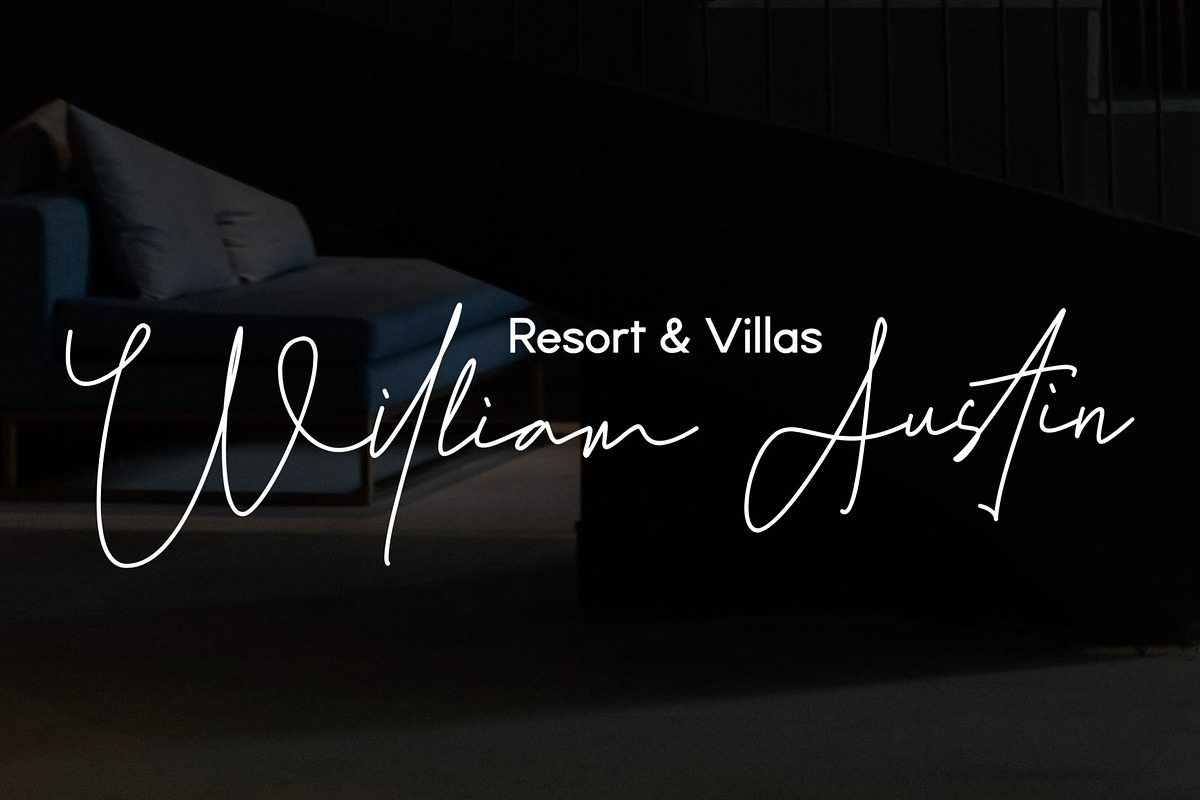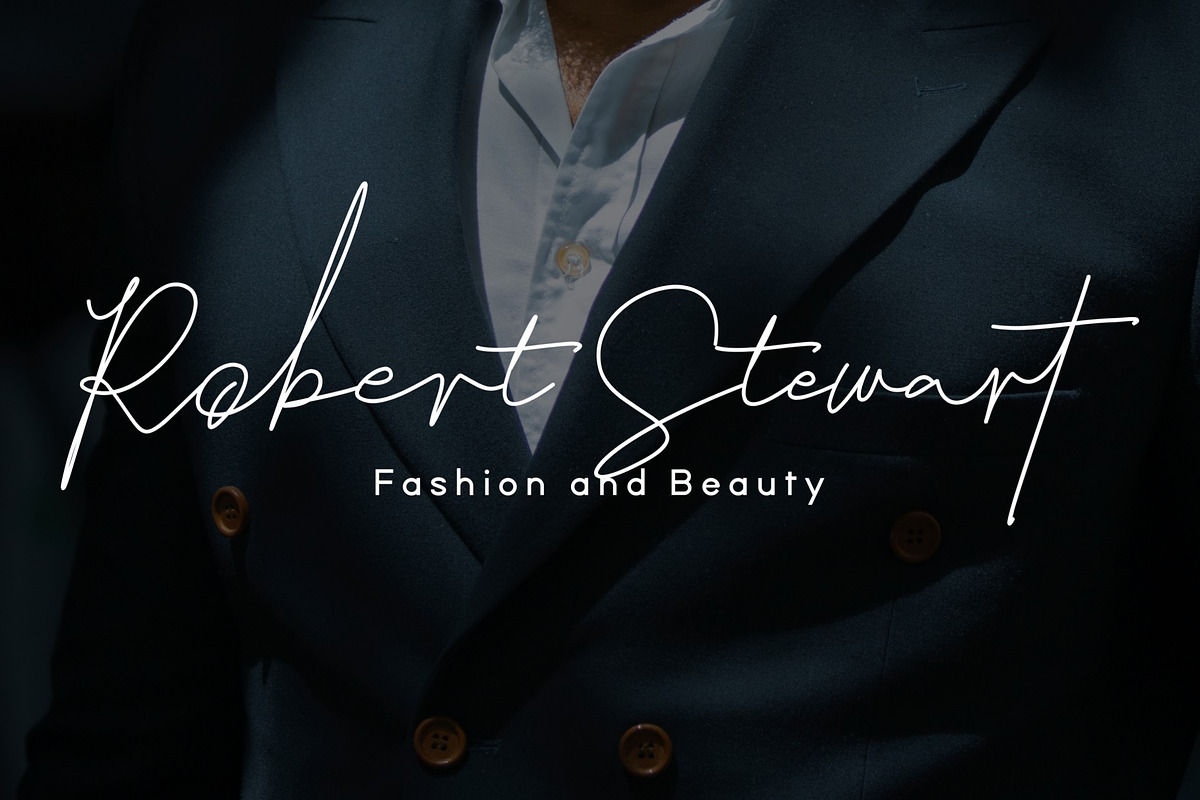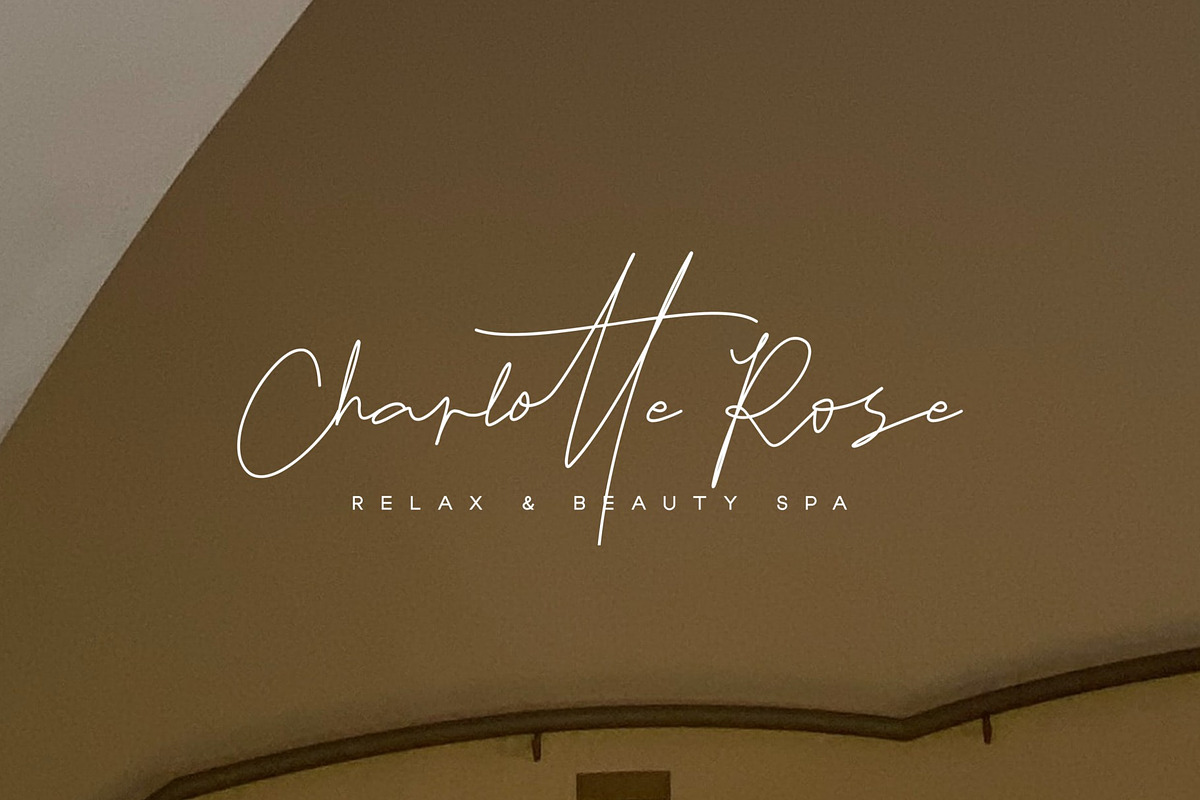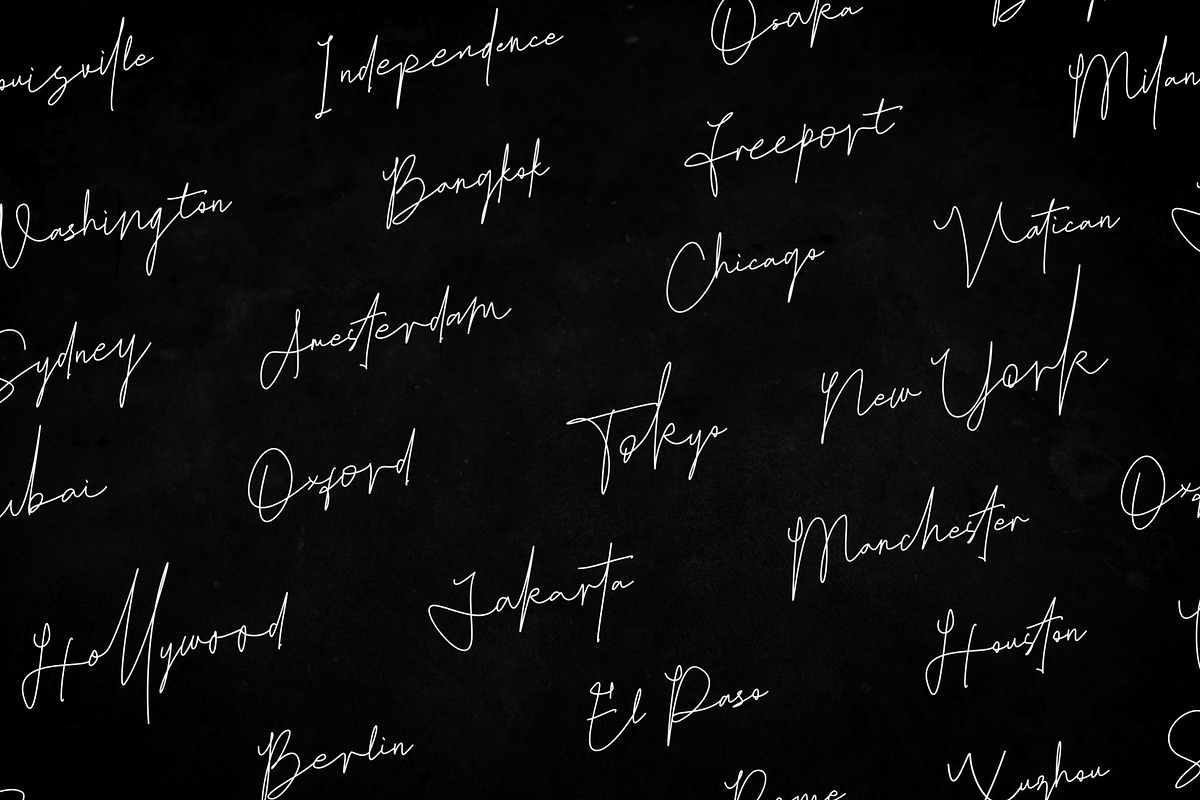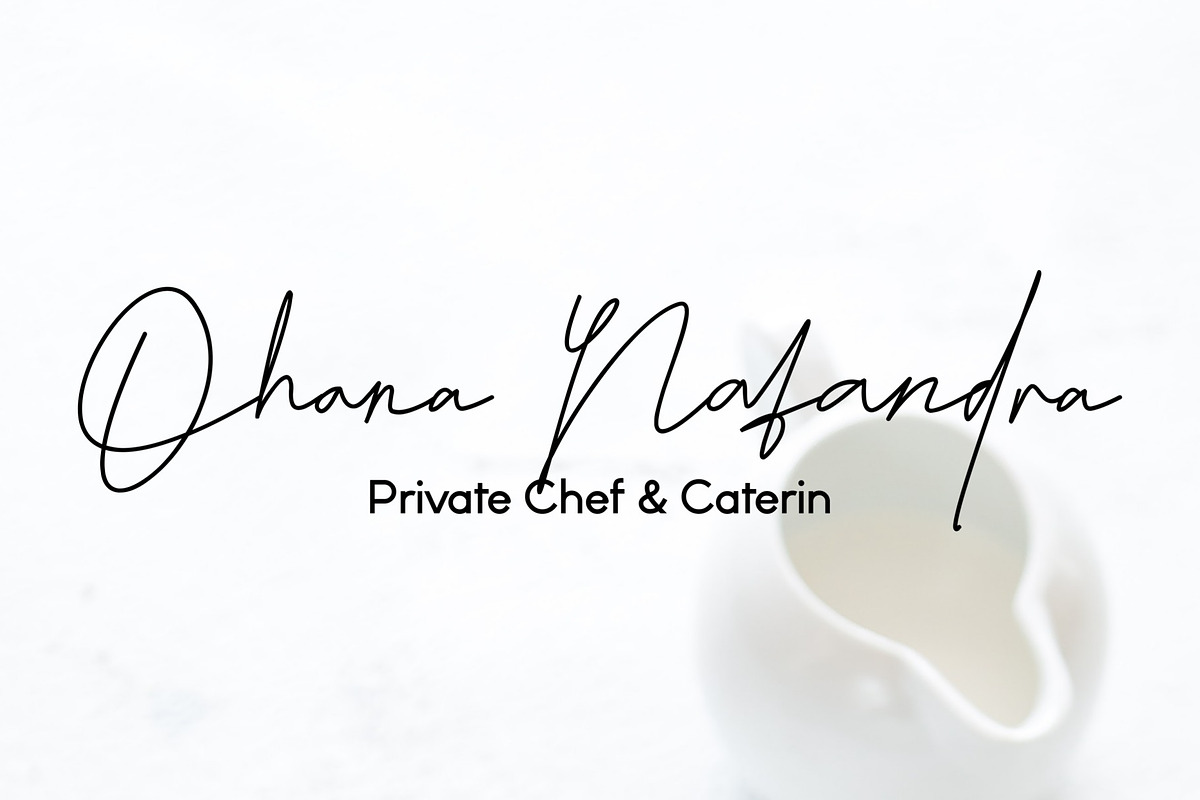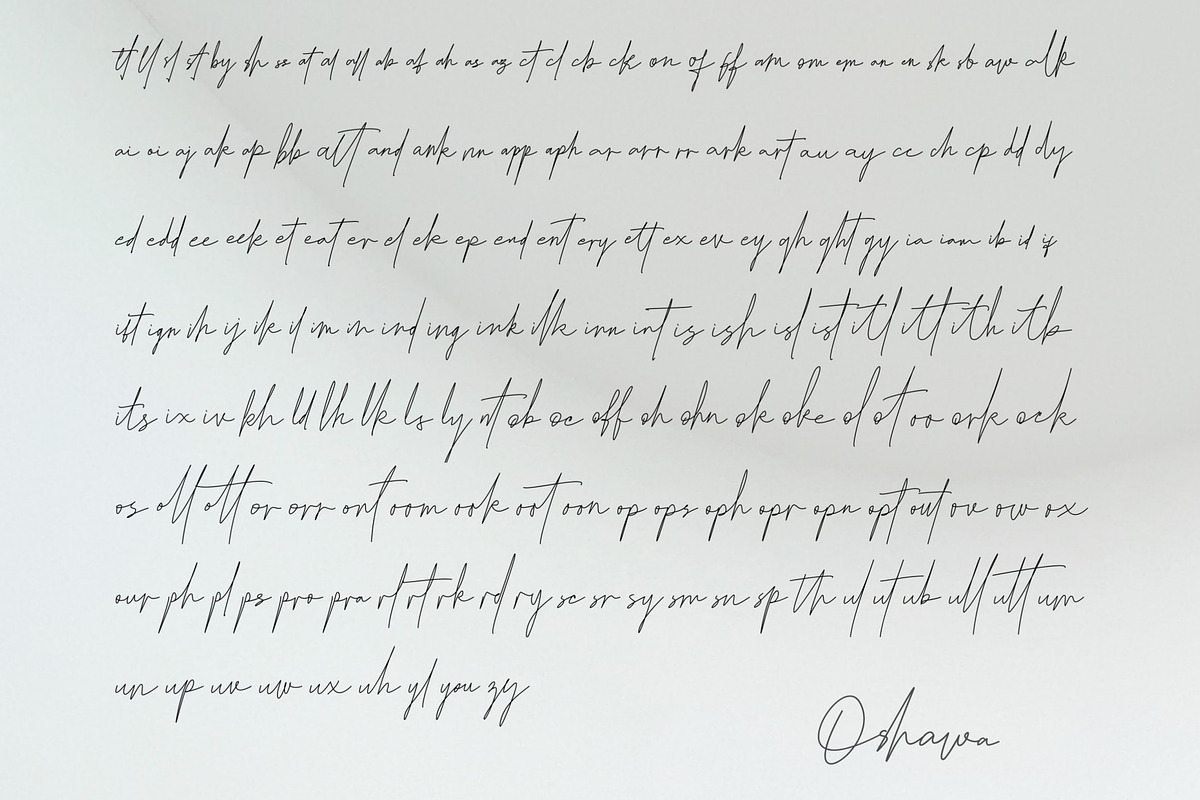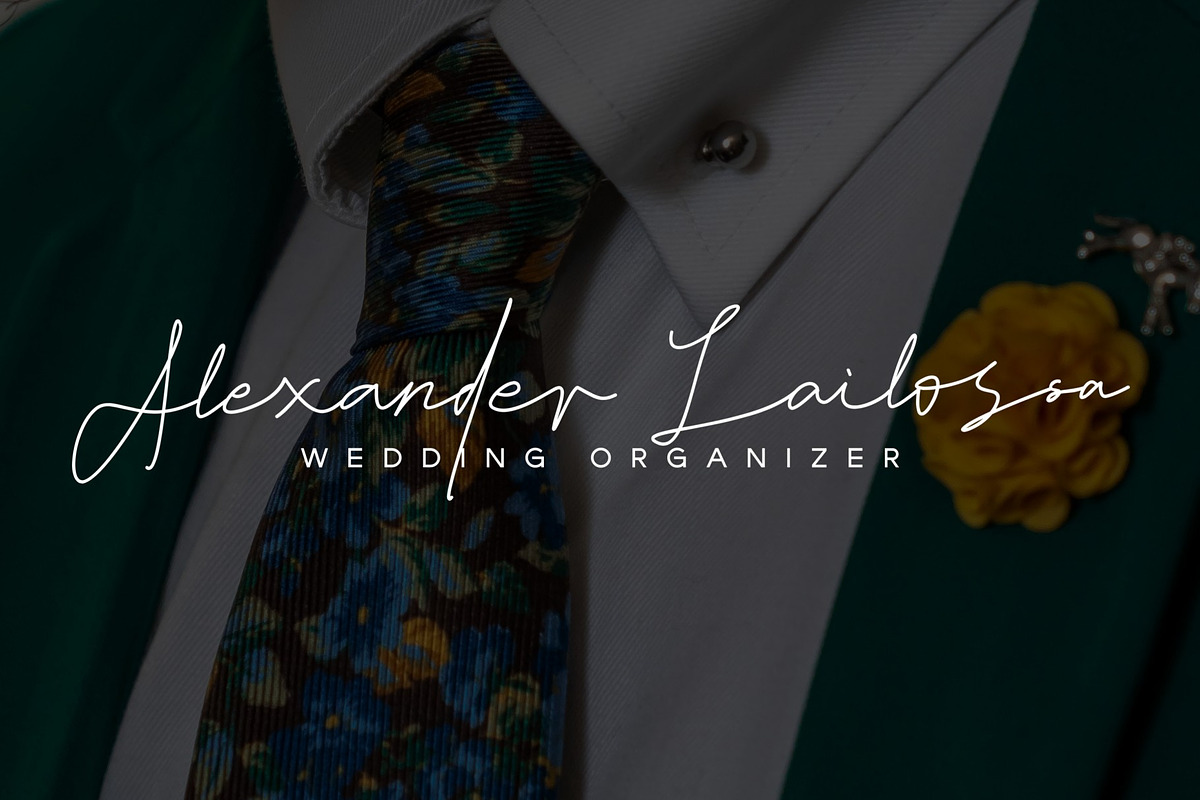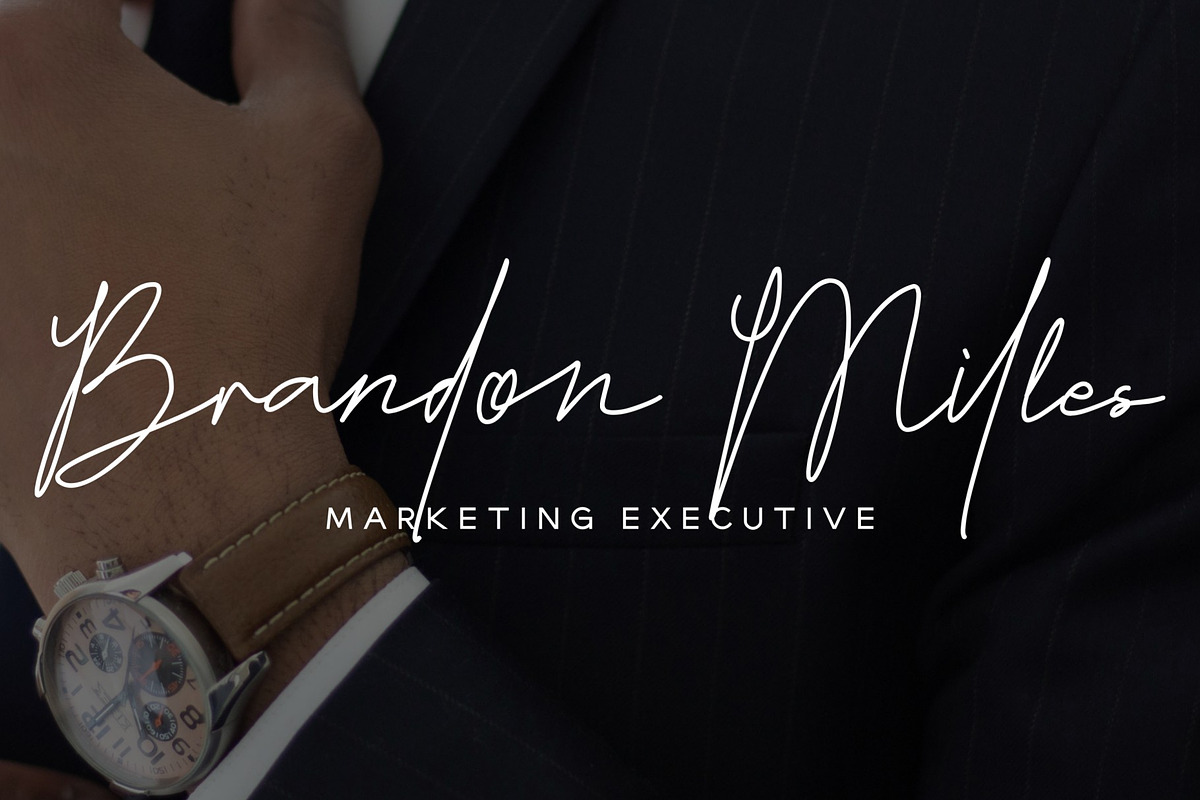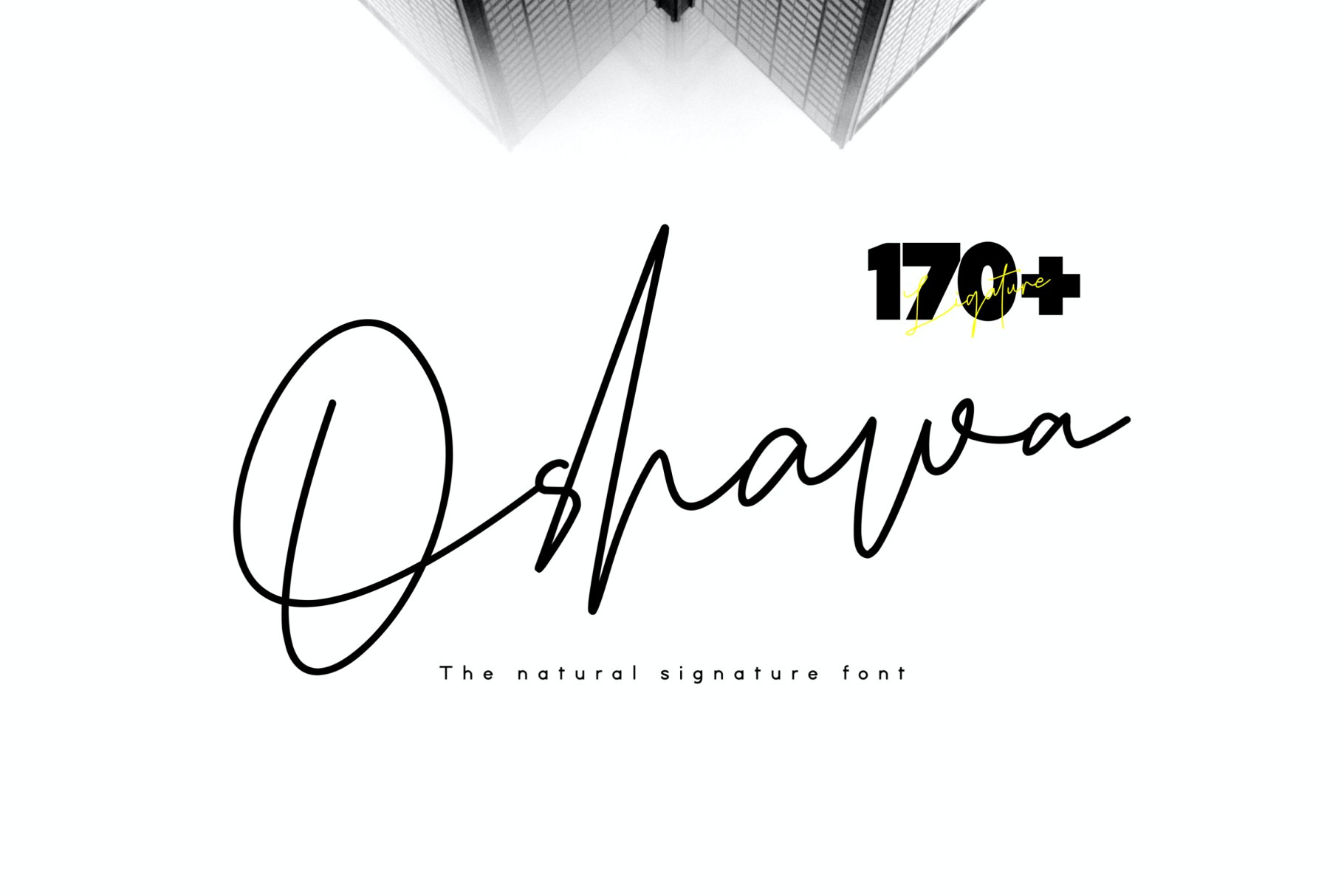
Oshawa - Professional Signature Font
Oshawa is a signature font with a natural and professional style, ideal for creating handwritten style logos, wedding stationery, photographer watermark logos, modern websites, and more. Oshawa is equipped with 177 handwritten ligatures that add a natural angle.